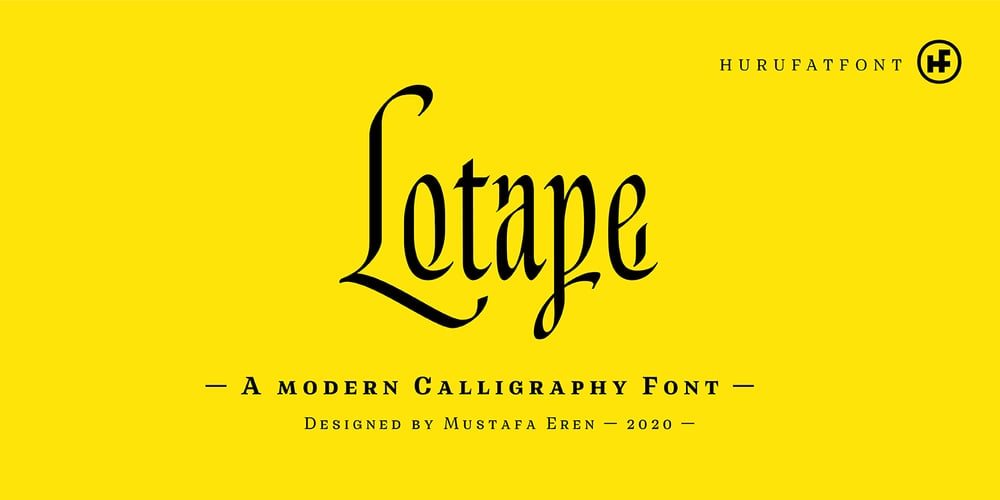
Lotape Font Family was designed by Mustafa Eren and published by Hurufatfont. Lotape contains 1 styles and family package options. “Lotape” was designed by calligraphy artist Mustafa Eren and digitized by Oğuzhan Cengiz. It is striking with its unusual ligature structure. Ideal for creating special and unique header texts with swashes and rich ligature alternatives.